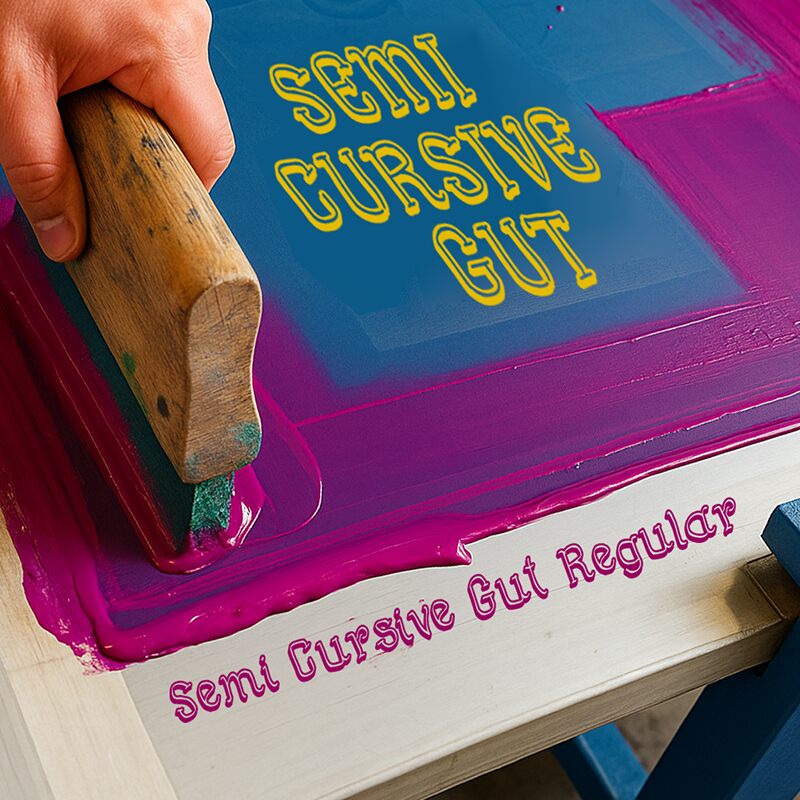
Semi Cursive Gut font by Galdino Otten Fonts is a free comic display font. It stands out with thick, inky outlines and playful inner hollows that make each letter feel hand‑painted and a little mischievous. The bouncy rhythm and soft, scalloped curves keep headlines lively without slipping into chaos, giving you impact and charm in the same breath.
Using Semi Cursive Gut, titles jump off the page for kids’ books, snack packaging, festival posters, YouTube thumbnails, stickers, and school event flyers. The generous counters and jaunty strokes stay legible at big sizes, while the quirky curls add personality. Pair this free font with a clean geometric sans for small captions to keep the spotlight on the playful letterforms.